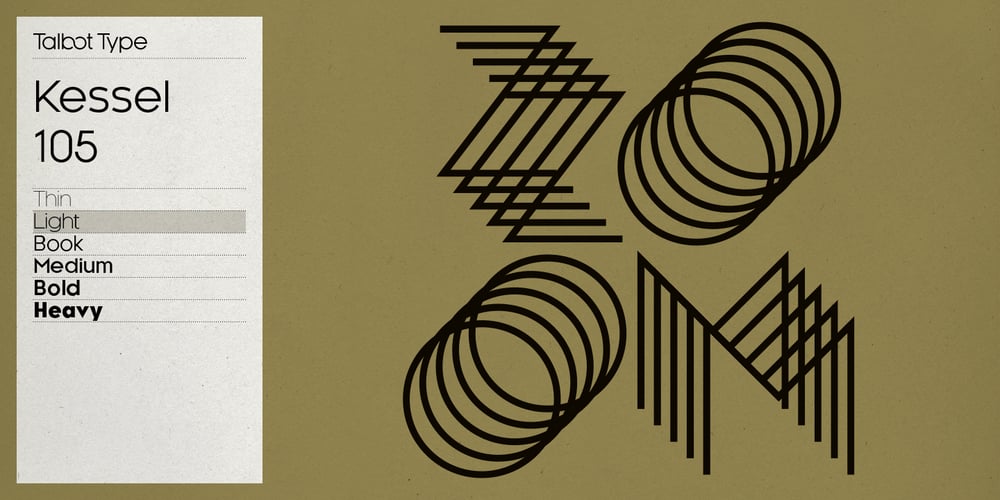
Kessel 105 Font Family was designed by Adrian Talbot and published by Talbot Type. Kessel 105 contains 12 styles and family package options. Kessel 105 is inspired by the classic, geometric sans-serifs such as Futura, but has shallower ascenders and descenders for a more compact look, and features an art deco influence with sharp points at the apex of many characters. It’s a versatile, modern sans, highly legible as a text font and with a clean, elegant look as a display font at larger sizes. It includes old style non-aligning (lower case) numbers, both proportional and tabular as well as accented characters for Central European languages. The Kessel 105 family comprises of six weights and is closely related to Kessel 205, it’s more intensely Deco flavoured cousin.